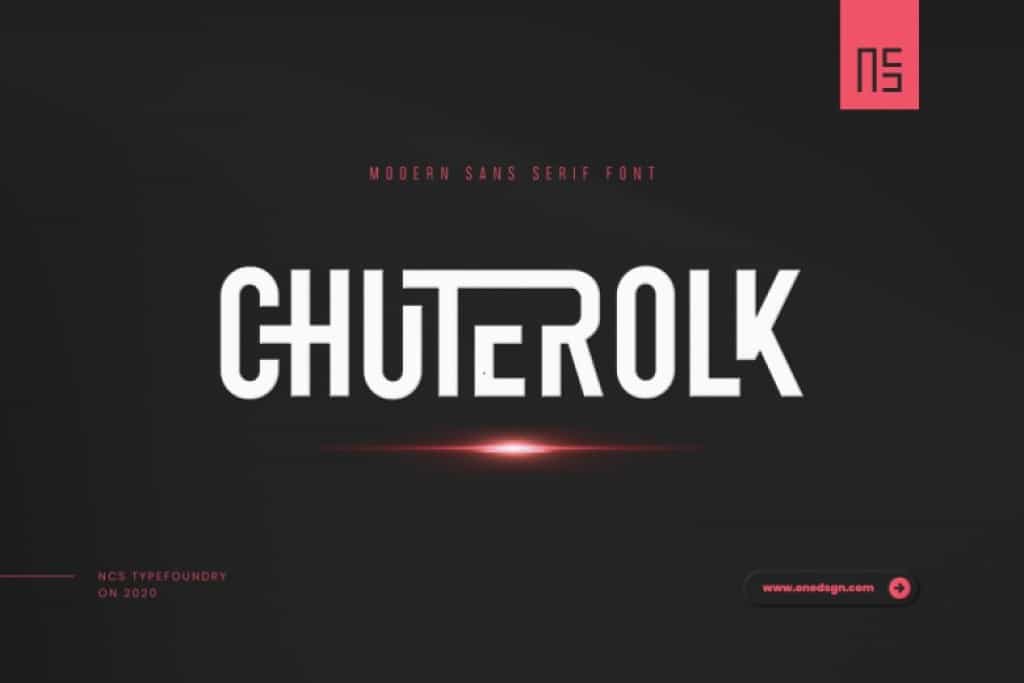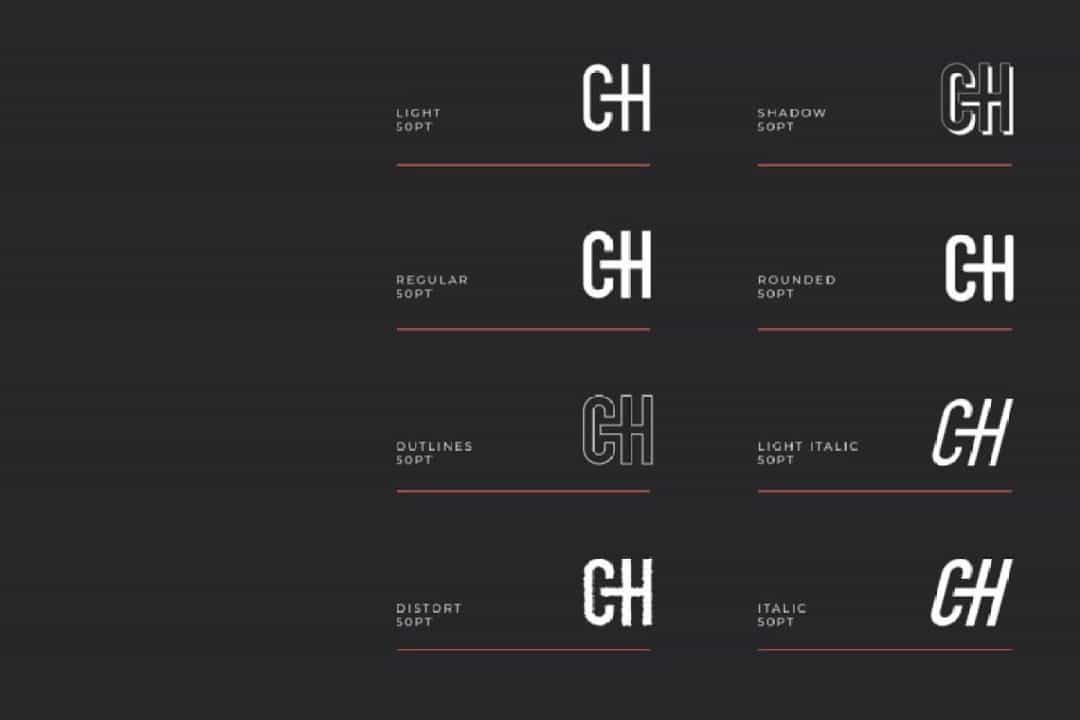
CHUTEROLK is a display non-serif font with a certain personality of its own. CHUTEROLK font is characterized by the combination of the powerful curves and the acute angles, it can be applied as headlines.